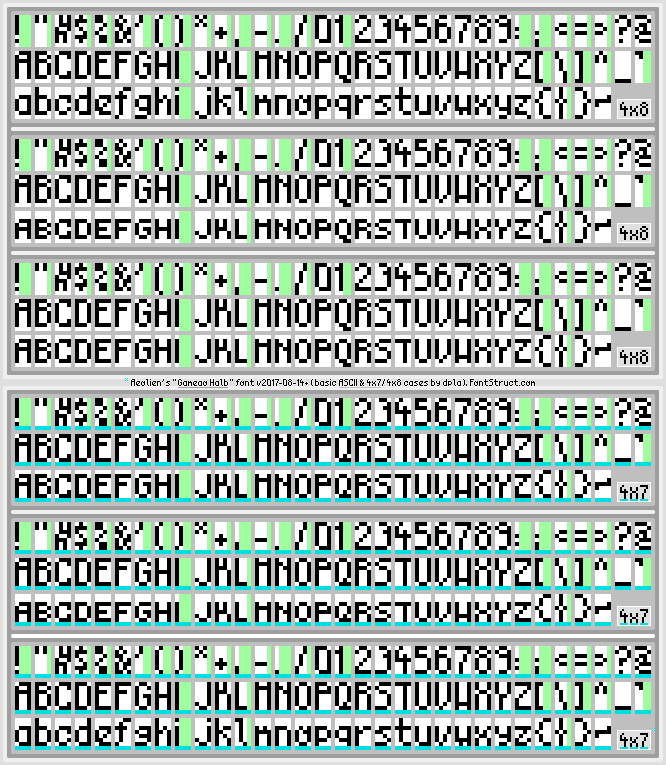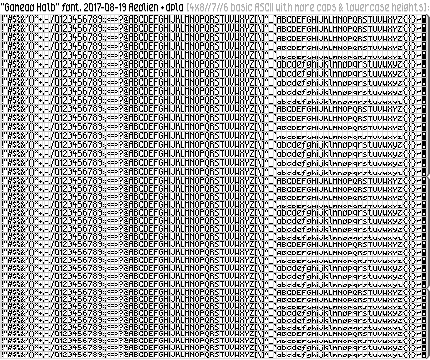
Goatmeal's comment about split bricks made me think and is the inspiration for this greatly downsized design. Yet another pixel font; I wonder how many designs are possible before the new ones look like those made before ... And before it gets mentioned: I didn't 'steal' this from anybody, I simply wanted to built something that looked unusual to me as I've made very few 'larger' pixel fonts.
Unofficial clone of your own "Gamaeo reglr".
You might want to lower the bar in "H" to mitigate the ambiguity with your new "M" ("W" is OK as is). "0" duplicates "O" (just unsafe for sensitive contexts). One glyph is 5-px wide (not 7-bit Ascii, though - it looks like "Đ").
4x7 is a pretty decent size, for a training experiment. You can try adding the lowercase (all basic Ascii, actually), before pushing your limits to smaller grid sizes. (You'll have to add a descender, to begin with the small letters, i.e. via a hacked baseline, or 4x6-based uppercase/numerics.)
Don't bother about the 'borrowing' of glyphs at this scale, in my opinion: except for your very 'high' style of bars (hence the unexpectedly top-cropped "4"), you did not show a lot of fanciful distortions, for instance ("ACK34" look a tad odd, though), which makes your font rather all-purpose (even common), and more readable eventually.
Should I keep  the /, @, &, and the new 'Zero' ? I can't see a solution for the 7x5 Ð of the UC but made an alternate 7x4 on the LC: what do you think of it?
@ dpla: merci, you made a very instructive comment (ASCII? j'en comprends toujours très peu). New horizontals: lifted X, lowered H, Y, 4; made an alternate P,kept the p.
I'll try to reply thoroughly (pardon for not being concise and for keeping some unavoidable jargon)…
ASCII. You can take this 1960s American standard as our legacy Latin letters A-Z: it must be complete in ANY text font.
All the ASCII characters are to be available in an actual text font, at least the said 'basic' ones (#20-#7E code points in UNICODE nowadays [http://unicode.org/charts/PDF/U0000.pdf]): “ !"#$%&'()*+,-./0123456789:;<=>?@ABCDEFGHIJKLMNOPQRSTUVWXYZ[\]^_`abcdefghijklmnopqrstuvwxyz{|}~”). If you count well, there are exactly 93 characters in all (numbered 33-126 in decimal, where 32 is the Space character and is generally avoidable by design from your software -spacing- settings). This set of 7-bit characters (= 94 visible ones out of 128 [2^7] of different kinds) is really all today's digital world needs to communicate safely. Even if you think 'real world', you'll need to store your data (i.e. text), otherwise it's lost once the medium get destructed (e.g. a consumed page). In order to save your message via softwares, you must rely on conventional scripts, at least to make the further exchange possible (such conventions bind e.g. one character/glyph and one numeric value/code point together). The ASCII is the most used code today, and has evolved -to me- like an onion (cf. our brain and its layers): its core is 7-bit, like a vital germ (another personal metaphor). Even if you don't need its minimum/old code points (as characters or binary cells), e.g. if you just need to store a single Cyrillic or Chinese letter (scripts that are above the ASCII part of the Latin script), you'll need ASCII as the basis, e.g. for transmission protocols (they use simple commands to start with, thus they still fit very well the scarce set of basic ASCII characters, which is even true in programming, in general). [Less trivially: the related characters are more likely to be used as binary values between softwares, instead of plain text transmitted between humans, for instance to encode images in Base 64 : 64 characters only are needed, vs the 94 available in basic ASCII.] You can just remember that this range of code points ("!" till "~") cannot be reduced safely, if you want your font or typeface to be widely usable (and properly functionaly with our modern tools). That's why I repeat here and again the annoying fact (sorry for jamming the members's shoulder), that an incomplete set of basic ASCII characters is merely a 'pseudo-font', not an actual text font, if you want it to be viable beyond artistic purposes. Because, you see, in art, we got many unproductive deadlocks, like the "U" replaced with "V" (on a lot of Parisian monuments etc. - colliding homonyms in our 26-letter world etc.), if the unaware FontStruct artist still think e.g. "0" can use the same glyphs as "O" ! Science helps in this situation, with its reproducible standards. Basic ASCII may look useless nowadays (to be supported thoroughly), but our computers (all our worldwide technology) requires it completely (for the simplicity as I mentioned, without presuming what will be the choices in the future - I already stated that the uppercase was almost useless to me, as well as our -French- diacritics).
Your update:
· "0" ≠ "O" anymore (interesting choice of orientation in the new zero - of course I prefer a [new] zero, than no zero at all);
· "Ð" as 4x7 instead of 5x7 (I could not do better with your design of high bars [diacritics in small matrices are critical/bad], and this glyphs distinguishes enough from "B");
· "H" bar tweaked to fit e.g. "G" (no more confusion with "M" for me);
· "4" ditto (its bar is still high enough, and the whole looks complete now);
· "Y" ditto (though less useful than in "4" above);
· Suggestion: if it were me, to follow your slight italic, I'd remove the top-left dot from "A" (so that this character looks less square in your rather round design);
· I note the disambiguating serifs in "C" (vs e.g. "G"), which is a hack (in your sans serif rule);
· Interesting "©" (funny but readable);
· A less stylized "/" would use 2-3-2 vertical lines of dots, in my opinion (currently you have 3-1-3 in the same 3x7 size);
· "@" and "&": the most original ones I could see lately! (not quite readable for my brain, though).
More tips/reminders:
· I need to release a couple of documentation files that explain or insist on the fact that our (pixel) Latin characters are read downwards… In the meantime: if you apply stricly this prerequisite concern of typography, you cannot draw a 'high bar design' that introduces some missing elements on the top (e.g. your former "4"), without spoiling the readability. Another side effect (of this style used in the far past in typefaces aimed at the rich, where reading slowly was not an issue): by packing too much information in just three lines of dots, you go past the limit of the available cells that can encode the differences safely (bars and individual dots). In practice, you often force the attention to the very top of the glyphs, where it is more packed, and unfortunately sensitive than in the rest of the glyphs. When a single dot counts, we need more concentration. So you have 3 lines of critical data, next 4 lines of less important one. This produces like a hiccup in the related glyphs. For instance, between "B" and "R": the reader is like compelled to parse until the last line of dots (to get the difference), while the visually disambiguation process could have been quite smoother if the bar was in the middle. If you stretch both example glyphs to e.g. 4x70, you'll get the point: you ask for too much concentration, before forcing a snooze, and a quick, final check at the bottom. This is unbalanced, but the style requires it. (Of course, all my -unreleased- small fonts occupy the expected, average lines - nothing quite fanciful at this 'micro' size, if you want a classic look and an optimal readability.)
· You asked: “I wonder how many designs are possible before the new ones look like those made before”. Short reply: it's based on your rules (which limits the selectable glyphs in binary). When you apply a mostly 'LCD segment' design, as you did here, you decrease A LOT the possibilities by yourself. E.g. you dismiss most of the fanciful binary glyphs that could be selected in your mapping (jargon, sorry: "0000 0000 0000 0000 0000 0000 1000" would map the dot, for instance). From a huge number of glyphs (2^(4×7)=268'435'456 including the unsafe horizontal duplicates), probably millions, you still have hundreds of thousands of variants/alternates, if you were not discarding the ones that don't follow your invisible layout (yes, even the tiniest raster fonts have layouts at the design steps, not made with the compass as in their vector counterpart, naturally). Since you follow strict positional rules, even a round style (as a rule) etc., you have incredibly less choices. This makes your glyphs more homogeneous (there is less 'noise' in your font), but this common approach is shared by a great deal of quite readable pixel fonts. Which introduces the risk of repeating somebody's else work/experiment. If you need your pixel font to be (more) unique (besides you interesting high bars, that is), you can try e.g. adding/deleting dots in a repeated/logical manner. This would quite lower the readability, of course.